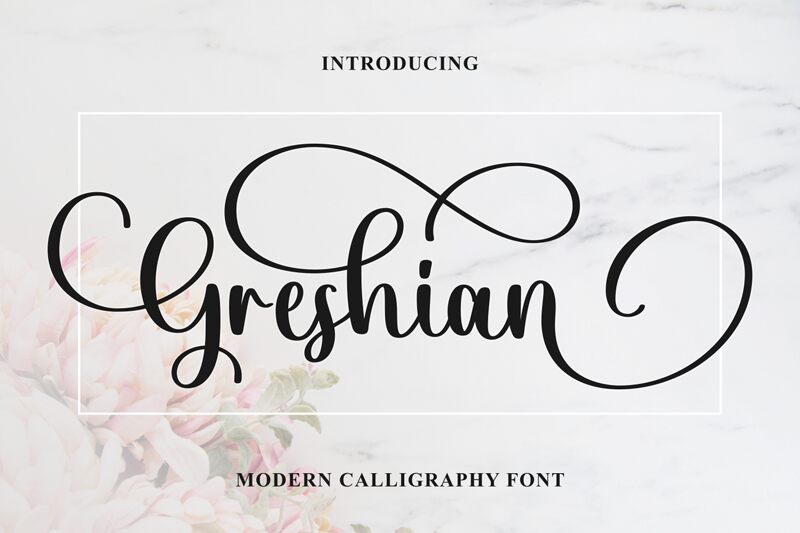
The Greshian font, crafted by the talented designer Makashi / MaqsumKS, is a breathtaking calligraphic creation that exudes elegance and sophistication. Inspired by the timeless art of hand-lettering, this font seamlessly blends fluid strokes with graceful curves, resulting in a visually captivating and emotive display. The Greshian's distinctive script-like aesthetic invokes a sense of artistry and refined craftsmanship, making it a standout choice for projects that require a touch of timeless charm and effortless sophistication.
Greshian's versatility allows it to shine in a variety of design contexts, from high-end branding and editorial layouts to bespoke stationery and luxurious packaging. Its adaptable nature makes it an ideal selection for projects that seek to convey a sense of authenticity, exclusivity, and timeless appeal, such as wedding invitations, event collateral, and premium product presentations.